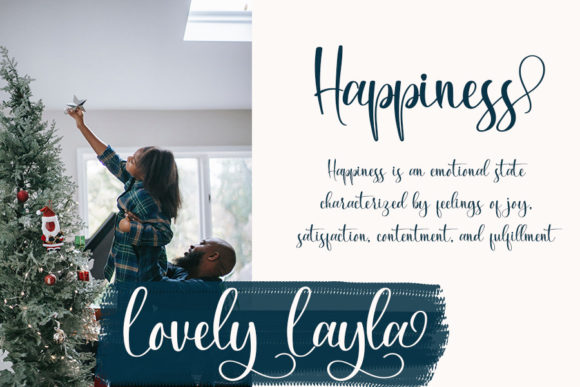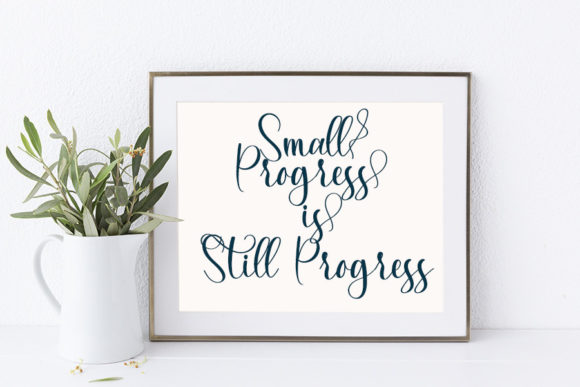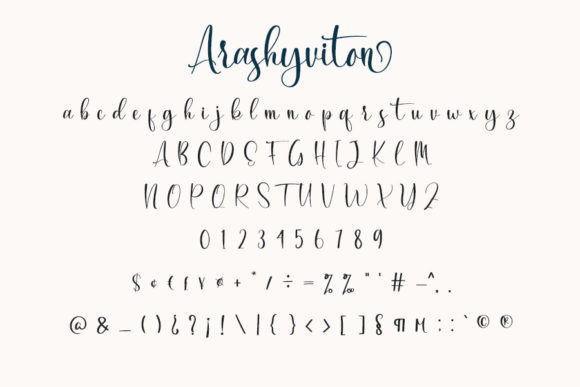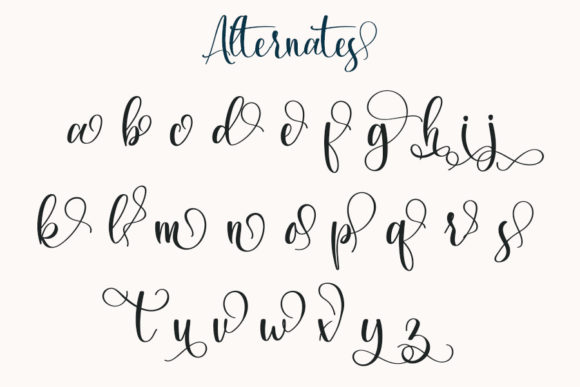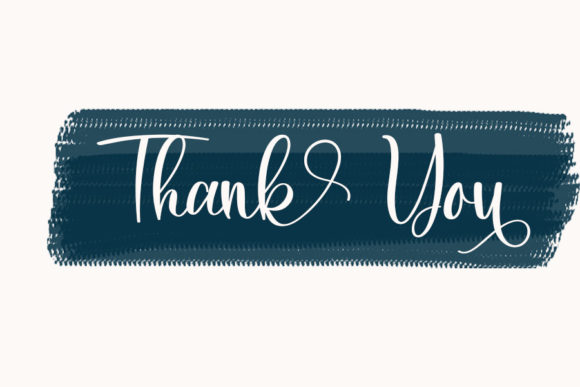
Introduction to Arashyviton Font
Arashyviton is a lovely script font featuring charming, playful characters that seem to dance along the baseline.
This font is PUA encoded which means you can access all glyphs and swashes with ease .
Key Features of Arashyviton Font